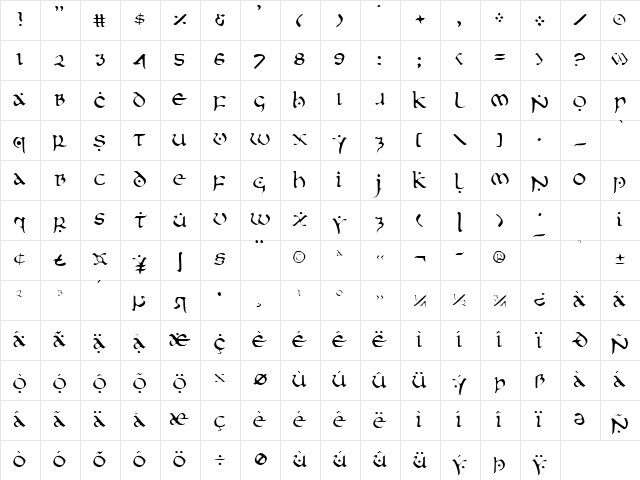
First Order Light Light
First Order Light Family
Design Context for First Order Light
First Order Light is a composed and adaptable typeface that performs quietly and consistently across a wide range of design contexts. Its slender proportions lend an understated elegance to any composition.